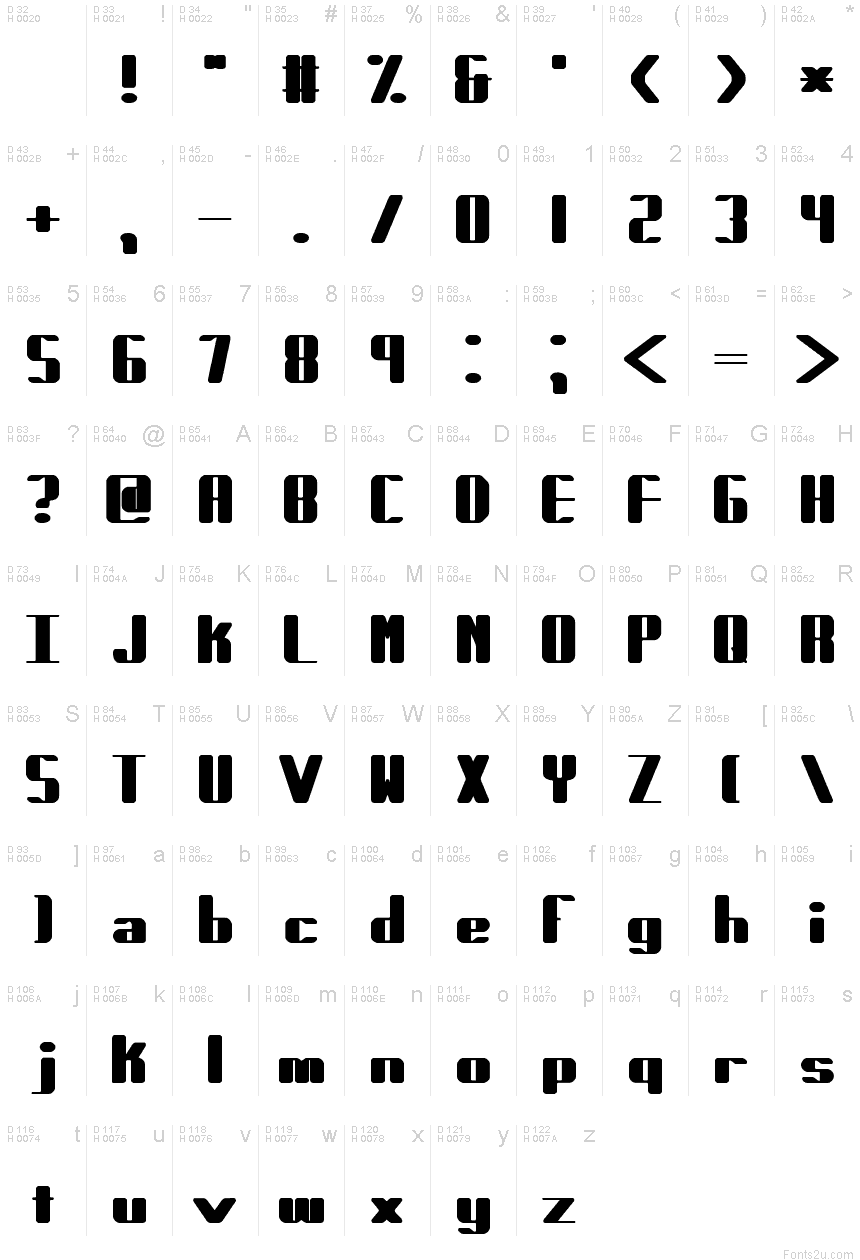
Forcible (BRK)
Forcible font by Ænigma Fonts is a free modern display typeface with a bold, industrial sci‑fi edge. Its thick, blocky shapes are sliced with crisp vertical gaps and softened by rounded corners, giving each word the weight of steel with the smoothness of molded plastic. Letters lock together like components in a machine, creating a tight, futuristic rhythm that jumps off dark or neon backgrounds.
Using Forcible, headlines snap into place for gaming logos, sci‑fi posters, techno event flyers, album covers, YouTube thumbnails, and esports branding. This free font shines at large sizes where its carved details stay sharp and readable. Pair it with a simple geometric sans for captions or UI text to keep the spotlight on Forcible’s chunky, cyber‑industrial voice.